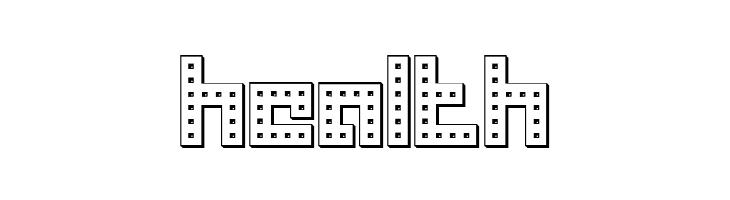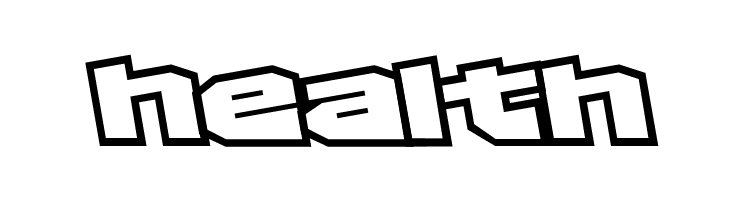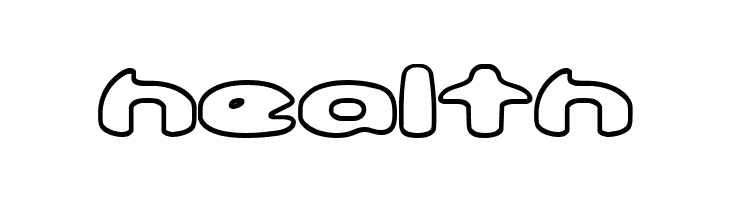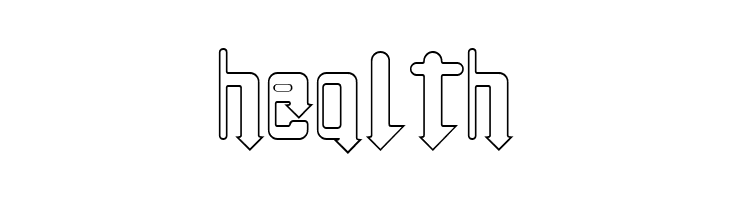
A bold, outlined font with a geometric and modern style.
A playful, bold outline font with rounded edges and hollow interiors.
A chiseled, outline font with a rugged, artistic style.
A geometric outline font with a futuristic and modern aesthetic.
A modern, geometric outline font with an italic slant, ideal for futuristic designs.
A bold, outlined font with a dotted interior pattern, offering a modern and playful look.
A playful, hand-drawn outline font with tall, narrow characters.
A futuristic, geometric outline font with sharp, angular shapes.
A modern, decorative font with arrow-like elements and an outlined style.